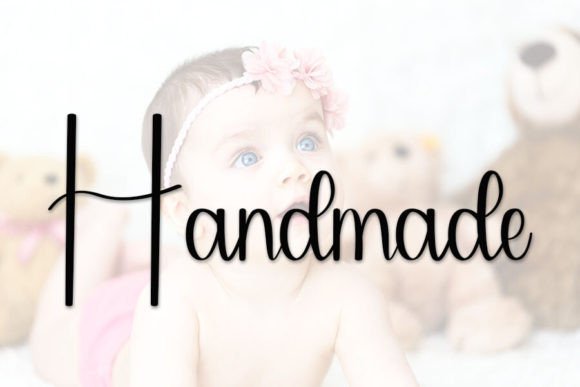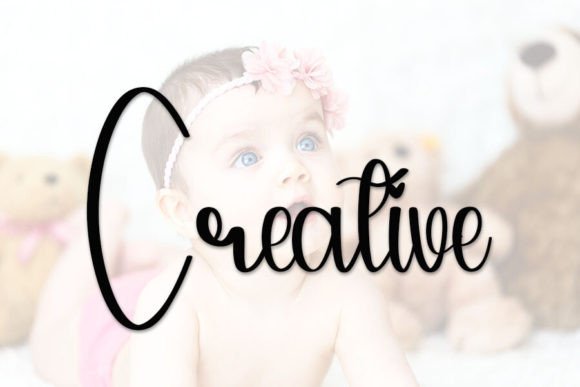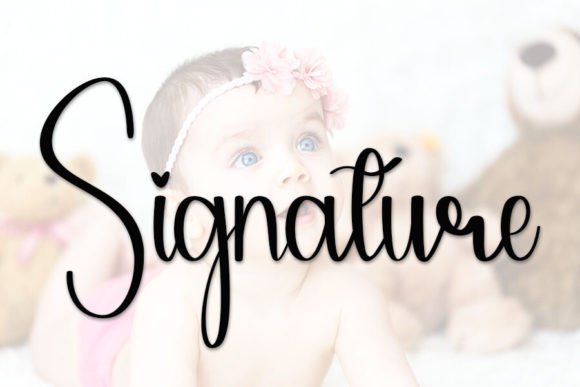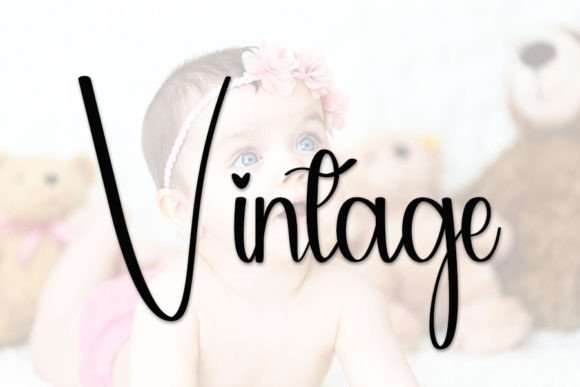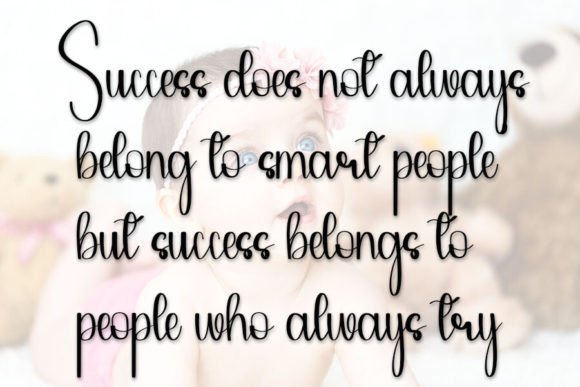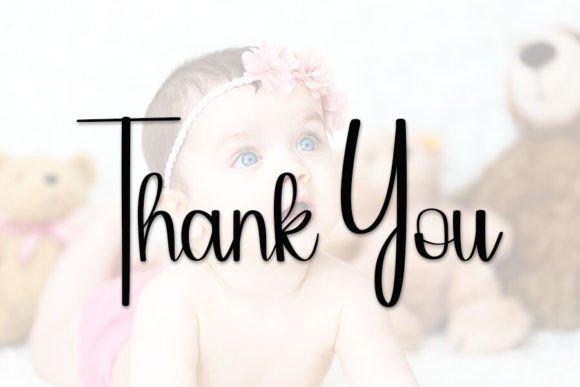
Cute Barbie Font: Elevate Your Designs with a Touch of Timeless Elegance
Are you on the hunt for a font that exudes style, sophistication, and a dash of playfulness? Look no further than the Cute Barbie Font, a stunning handwritten typeface that is sure to elevate your designs to new heights. Inspired by the timeless classic calligraphy, this font boasts a contemporary atmosphere and impeccable form, making it perfect for designers and crafters looking to add a touch of elegance to their projects.
What Makes Cute Barbie Font So Special?
Cute Barbie Font is a beautifully crafted handwritten font that is both balanced and varied, ensuring that your designs stand out from the crowd. With its PUA encoding, you can easily access all the amazing glyphs and ligatures, giving you endless possibilities for creative expression. Whether you’re working on a logo, branding project, or social media graphics, this font is sure to impress.
Key Features of Cute Barbie Font
- Handwritten with love: Cute Barbie Font is a carefully crafted handwritten font that captures the essence of classic calligraphy with a modern twist.
- Balanced and varied: This font is designed to enhance the beauty of your projects, with a balanced and varied style that works perfectly for a wide range of applications.
- Contemporary atmosphere: Cute Barbie Font boasts a contemporary atmosphere that is sure to appeal to designers and crafters looking for a modern, stylish typeface.
Cute Barbie Font is a versatile typeface that is perfect for a wide range of design projects, including:
- Logos and branding: Create a lasting impression with a custom logo or branding project that showcases your unique style.
- Social media graphics: Elevate your social media presence with eye-catching graphics that feature the Cute Barbie Font.
- Stationery and cards: Add a touch of elegance to your stationery and cards with this beautiful handwritten font.
- Web design: Use Cute Barbie Font to create stunning website headers, titles, and more.
Why Choose Cute Barbie Font?
With so many fonts to choose from, why should you choose Cute Barbie Font? Here are just a few reasons why this font stands out from the rest:
- Unique and stylish: Cute Barbie Font is a one-of-a-kind typeface that is sure to make your designs stand out.
- Versatile: This font is perfect for a wide range of design projects, from logos and branding to social media graphics and web design.
In conclusion, Cute Barbie Font is a must-have for designers and crafters looking to add a touch of elegance and style to their projects. With its unique and stylish design, ease of use, and versatility, this font is sure to become a favorite in your design arsenal.